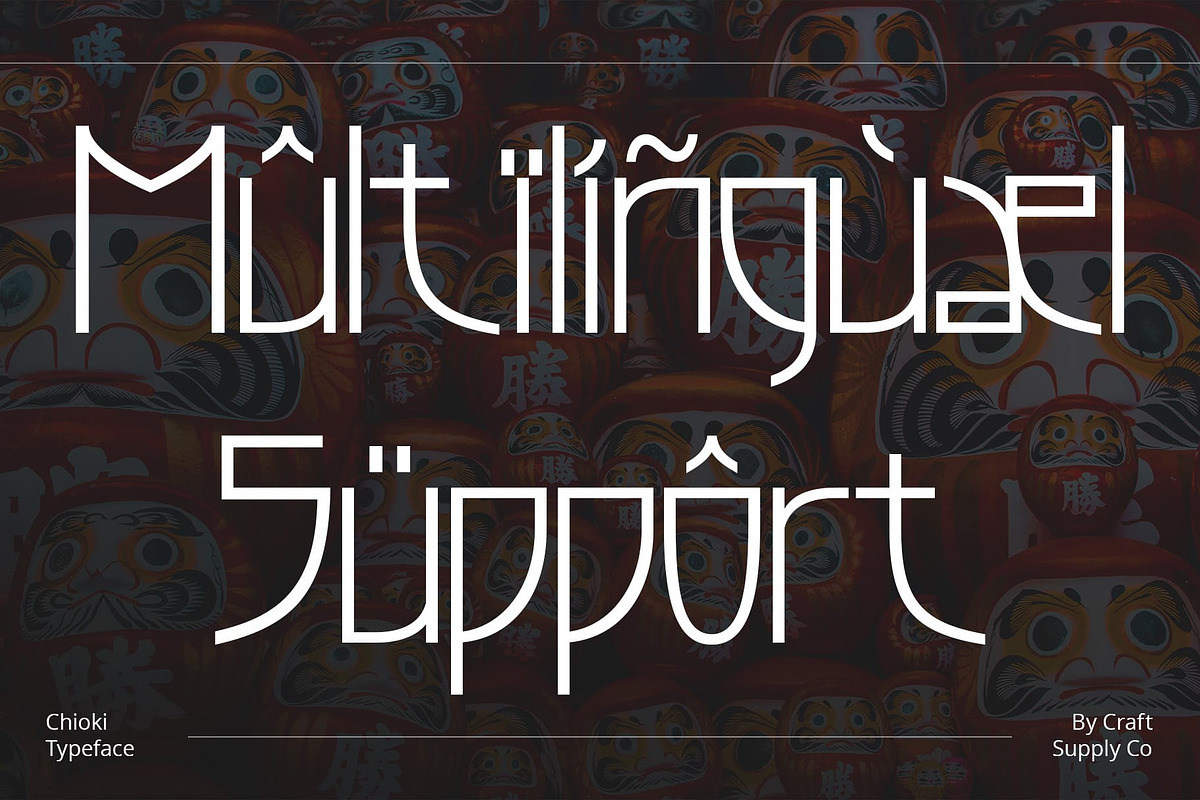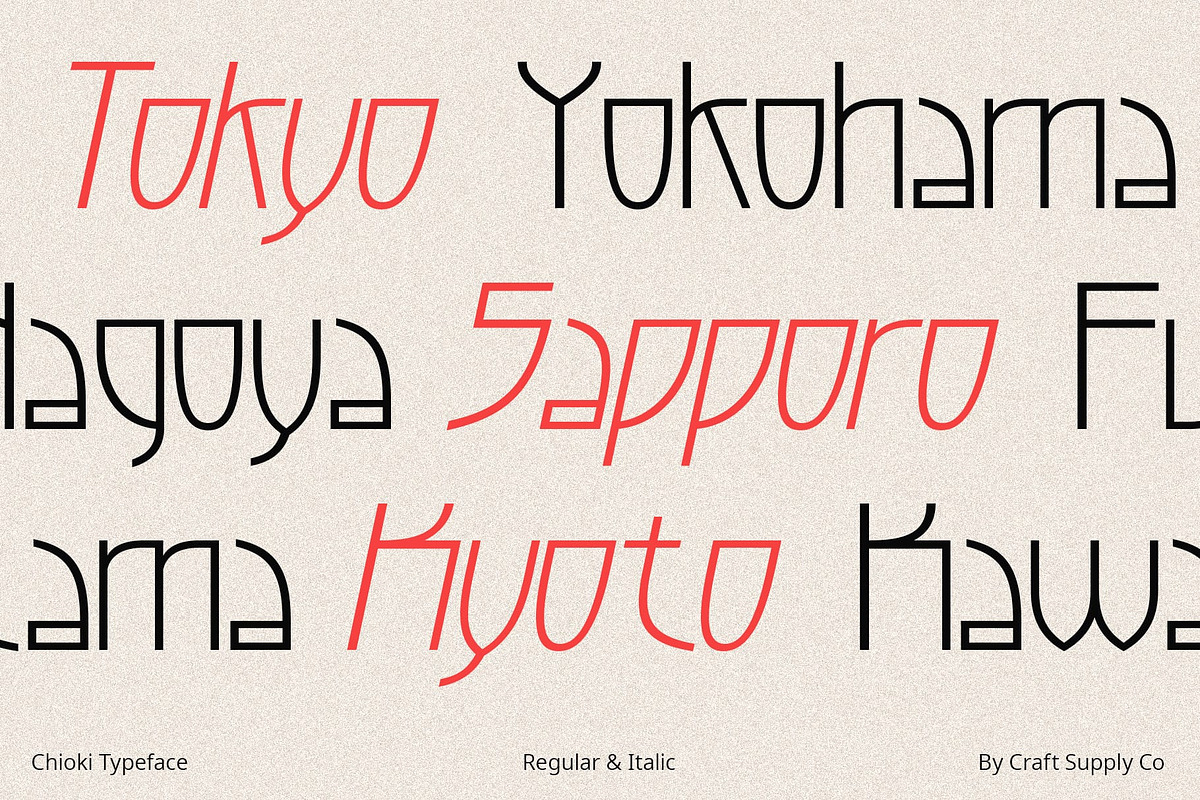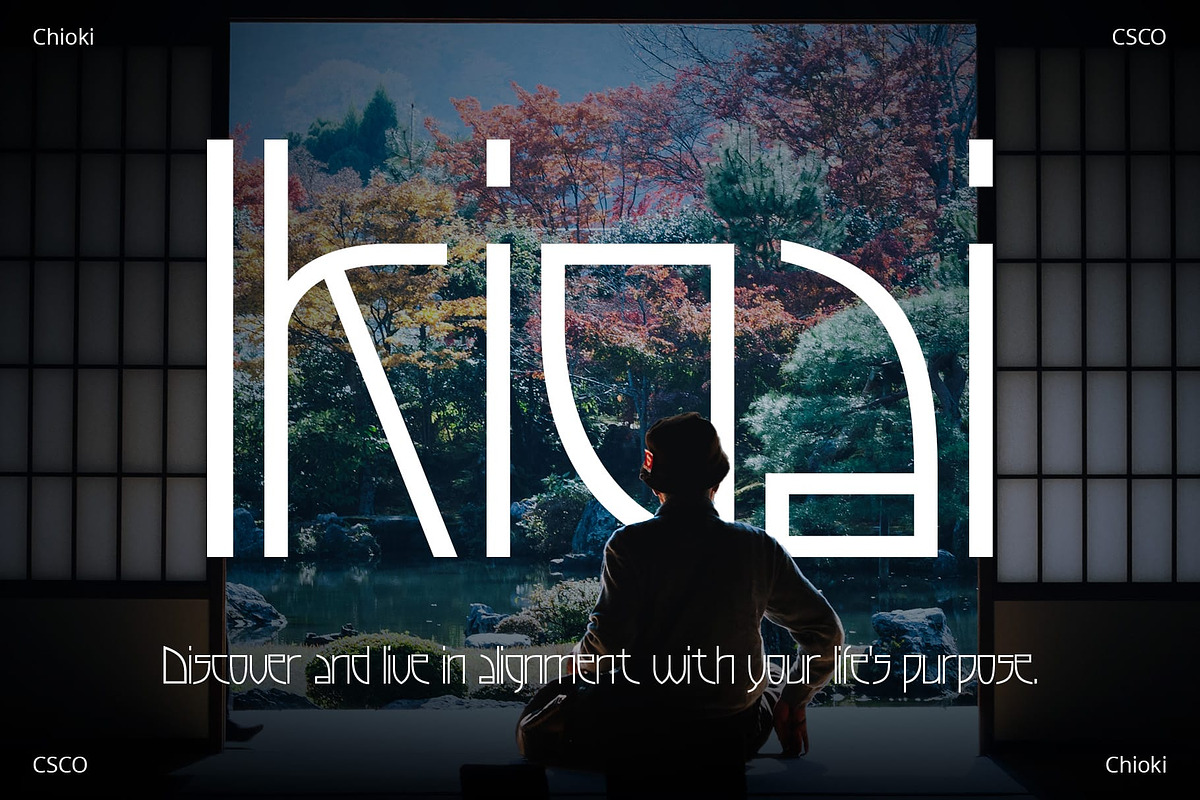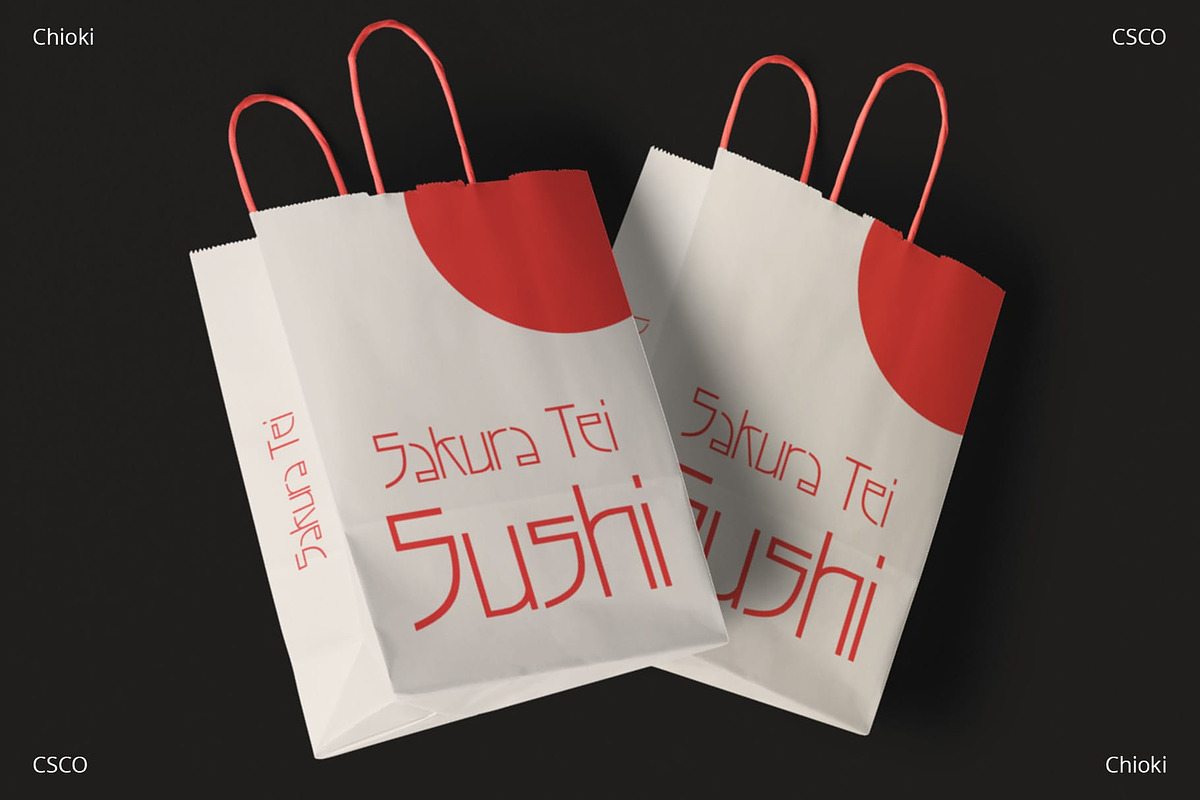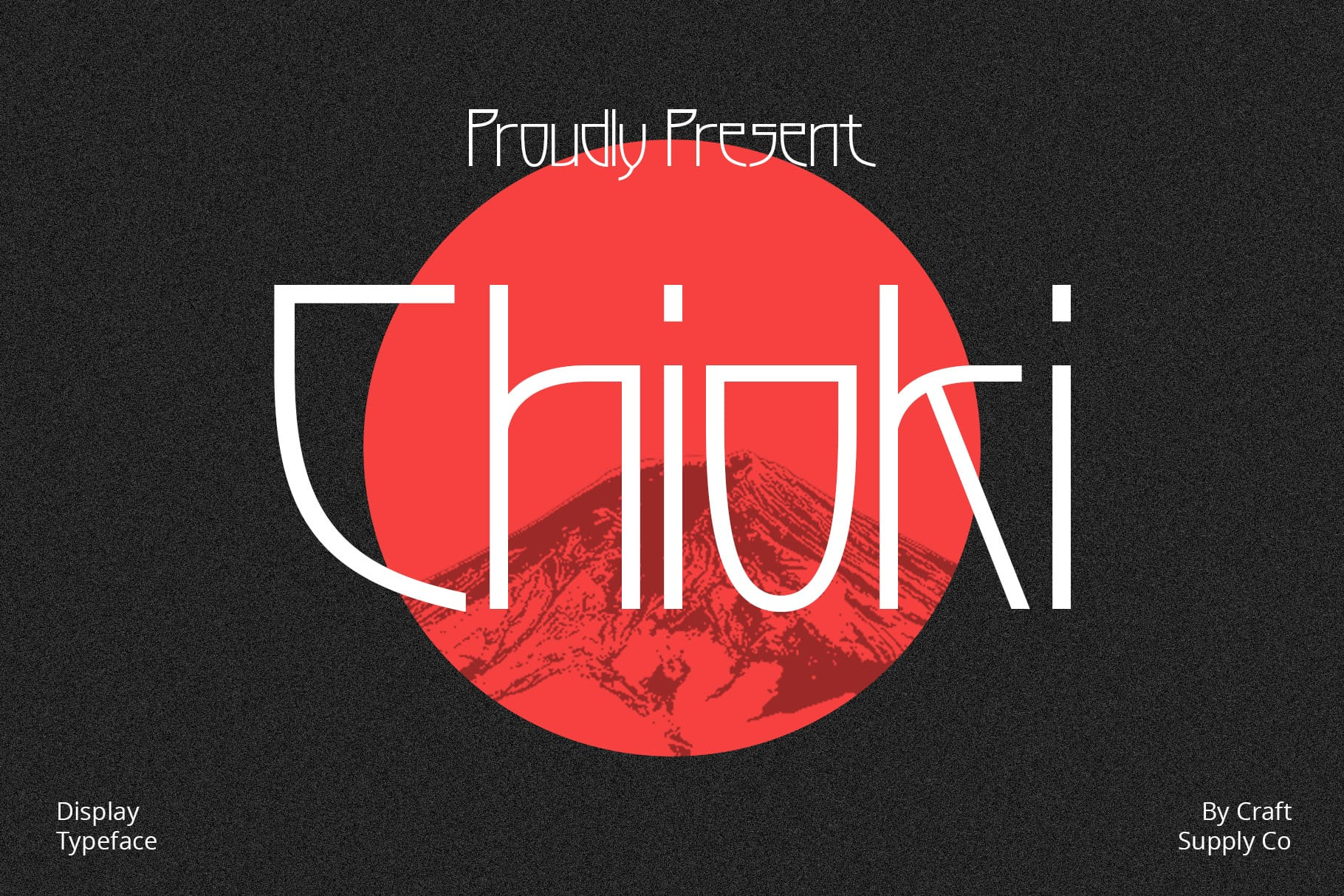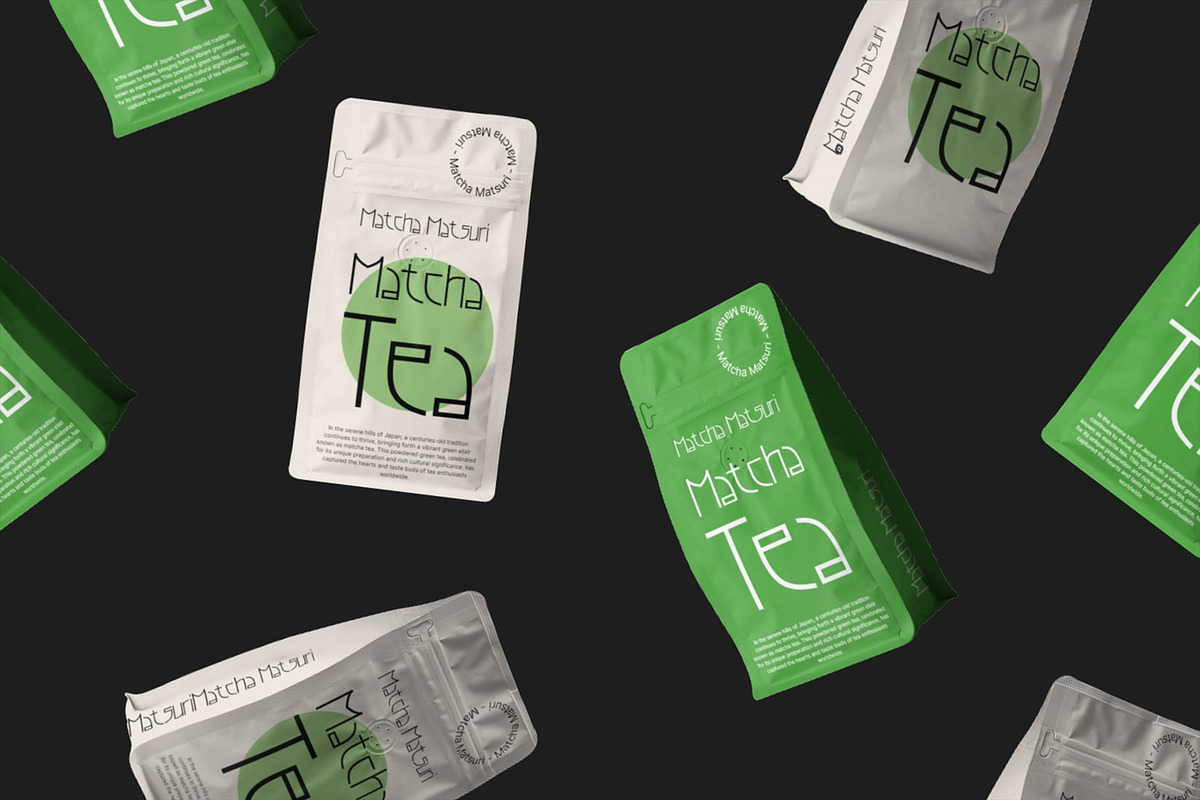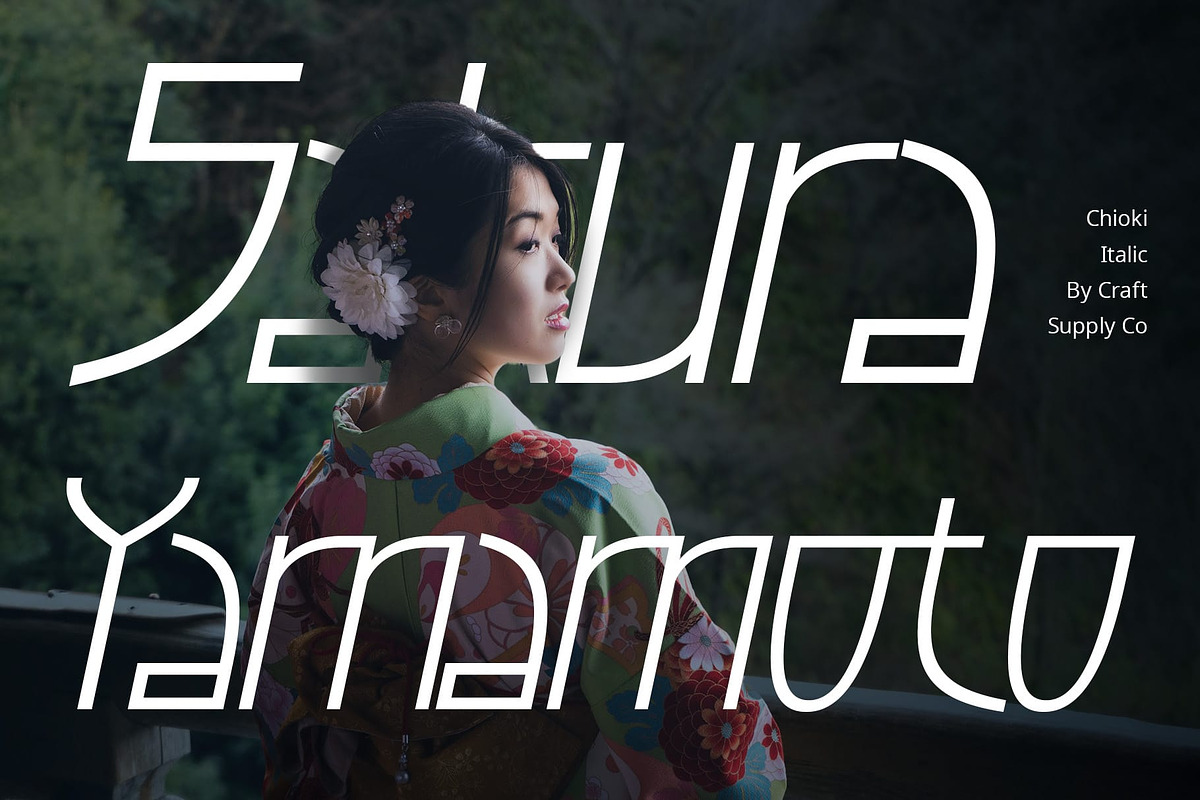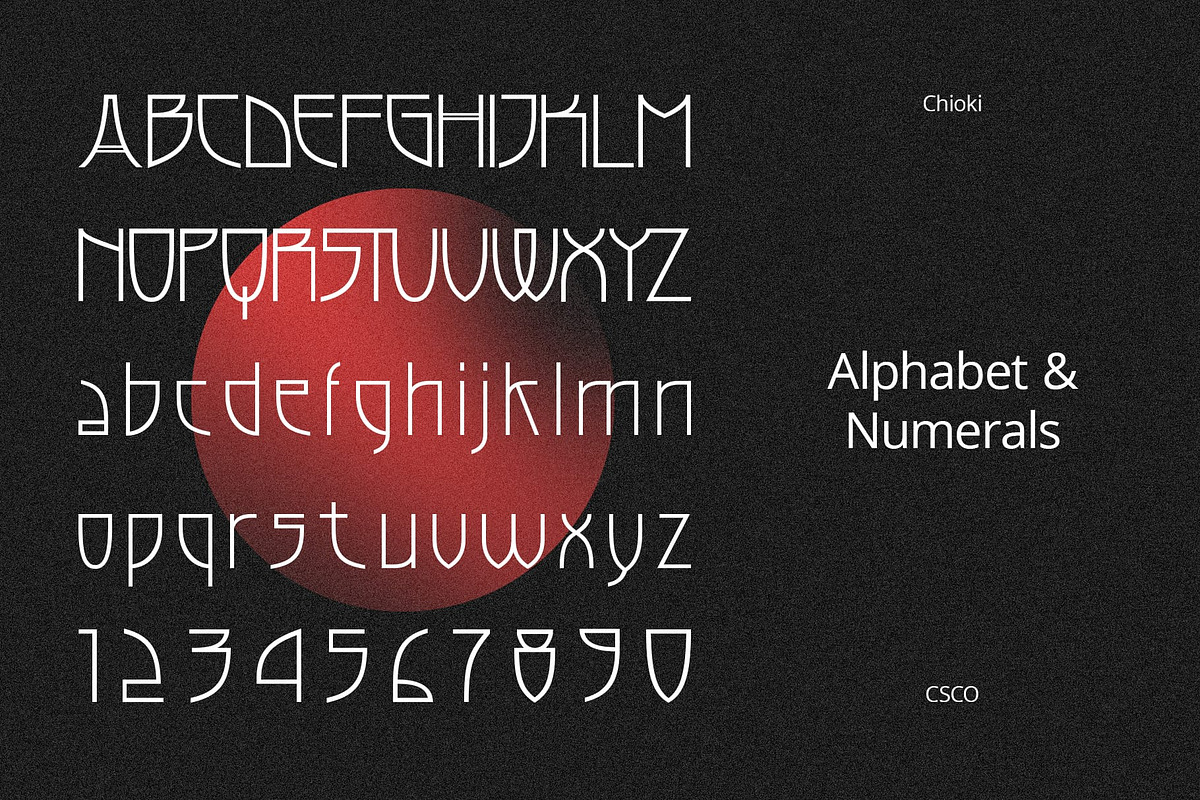
Chioki – Display Typeface
Chioki: A Fusion of Art Deco and Hiragana Elegance
Towering Elegance Chioki, a sans-serif display font, stands tall, drawing inspiration from the sleek lines of Art Deco and the fluidity of Japanese Hiragana characters.
Art Deco Influence Incorporating the geometric precision of Art Deco design, Chioki boasts elongated letterforms that exude sophistication and a timeless aesthetic.
Hiragana Harmony The influence of Hiragana is evident in Chioki’s fluid strokes, bringing a touch of Japanese calligraphy to modern typography. Each character tells a story of balance and grace.
Contemporary Versatility While rooted in historical design elements, Chioki is a contemporary powerhouse. Its tall, slender structure makes it ideal for eye-catching displays, branding, and editorial projects.
Conclusion Chioki emerges as a distinctive typeface, marrying the opulence of Art Deco with the graceful simplicity of Hiragana. Elevate your designs with Chioki’s tall elegance, where East meets West in a harmonious typographic fusion.